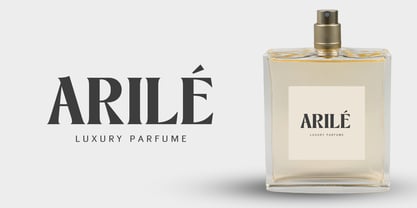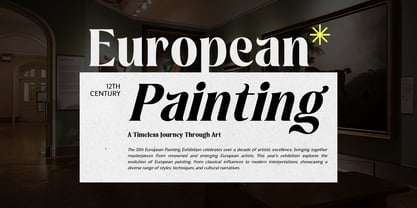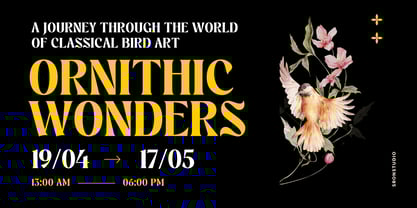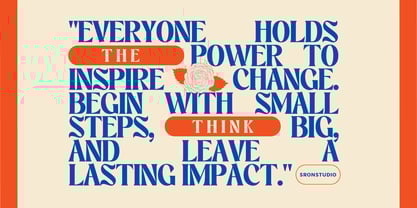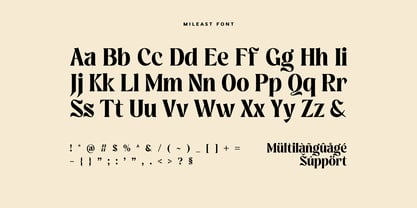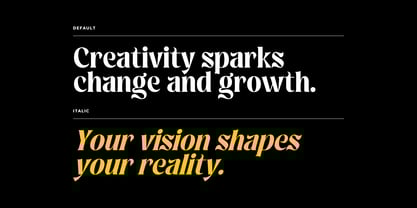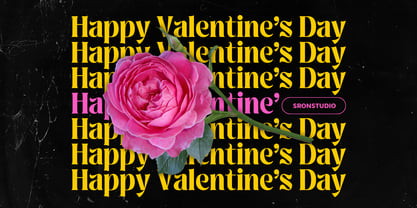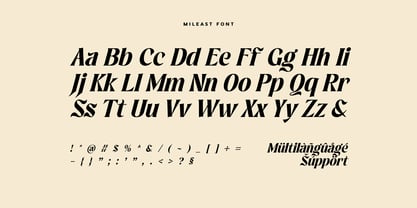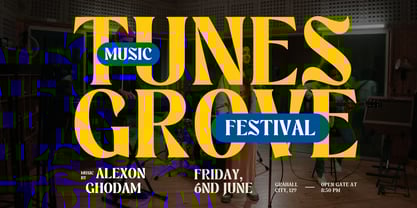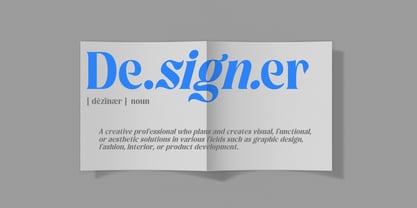
Mileast
by Sronstudio
The Mileast Font Family was designed by Muhamad Yusron Billah and published by Sronstudio. Mileast contains 2 styles and family package options. More about this family
Mileast is a striking display serif font that blends elegance with bold character. Its refined yet commanding letterforms make it perfect for high-impact headlines, branding, editorial designs, packaging, and more. With a balance of classic sophistication and modern aesthetics, Mileast brings a timeless charm to any creative project.
- Regular & Italic Style
- Uppercase & lowercase letters
- Numerals & punctuation
- Multilingual support